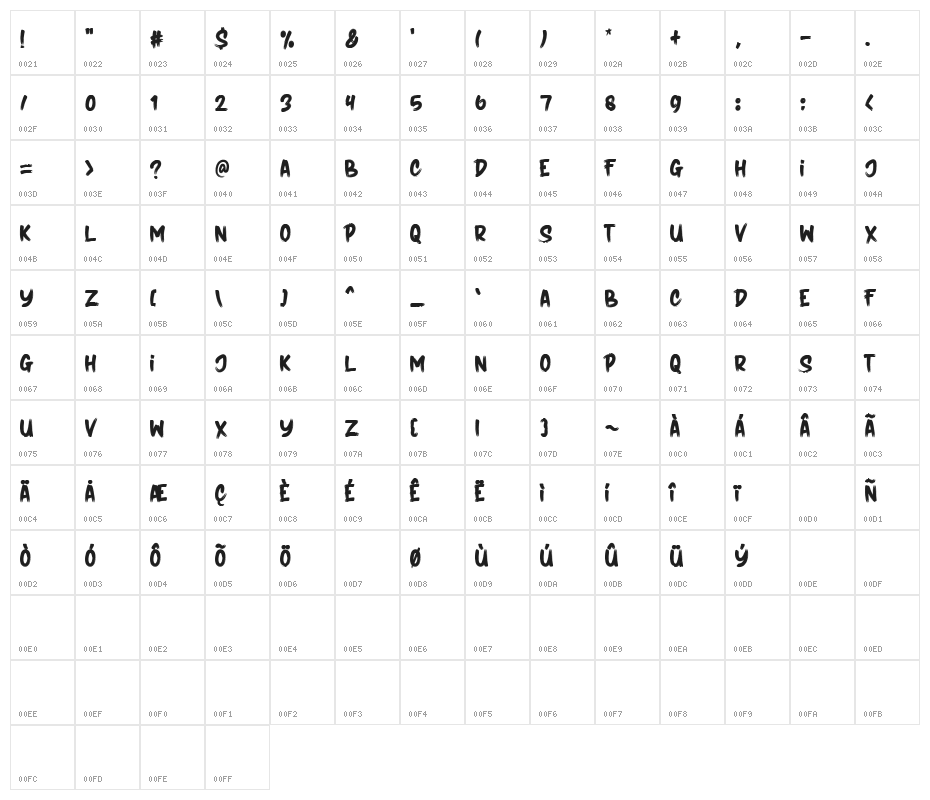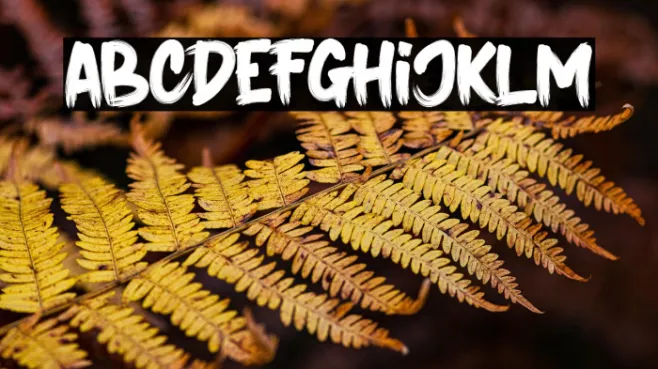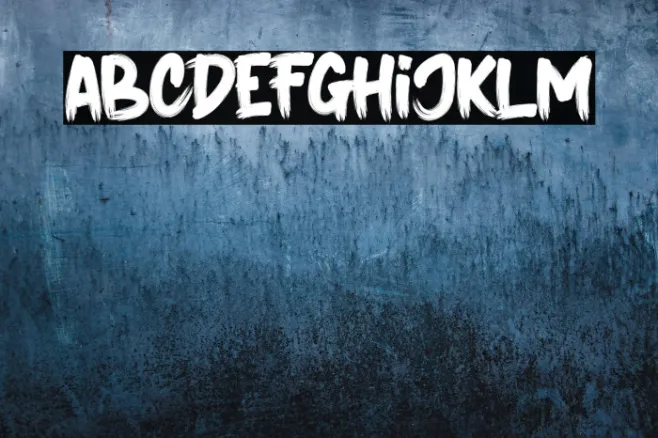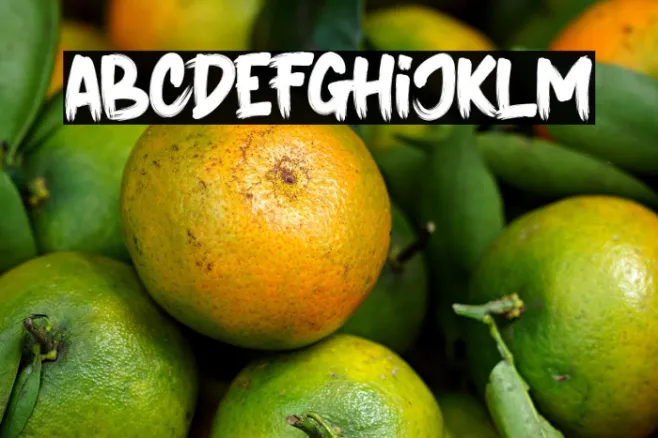
GOURMET Font
GOURMET Description
This font features a bold, brush-like style with a dynamic and energetic appearance. The strokes are uneven, giving it a hand-painted look that adds a sense of movement and creativity. The uppercase and lowercase letters maintain a consistent style, with slightly exaggerated curves and angles that enhance its artistic flair. The numbers and special characters follow the same design principles, ensuring uniformity across all glyphs. This font is ideal for projects that require a bold statement or a creative touch, such as posters, branding, or artistic designs.
| Style | Brush |
| Proposed Projects | Ideal for posters, branding, artistic designs, and any project needing a bold, creative touch. |